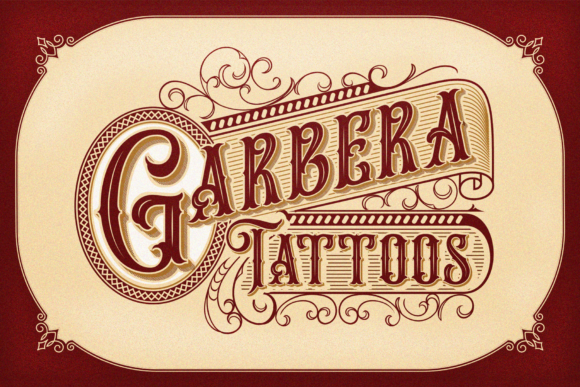
The Hungry Beast is a Victorian themed family. It has an old fashion feel which ca be used to give your design an unique look. It includes layered fonts which can be combined perfectly, giving you the opportunity to create multiple unique designs with just this one download.